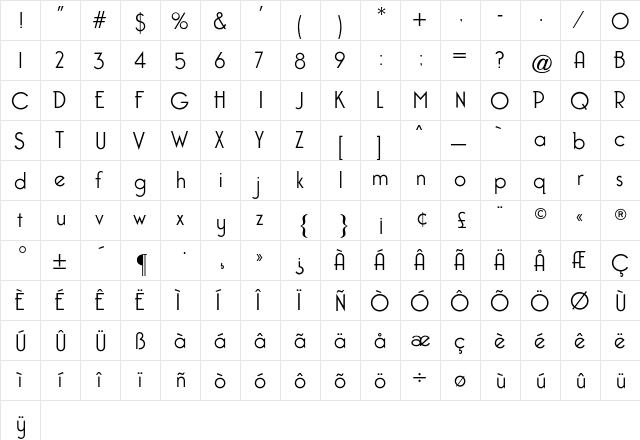
Capone CG Light Regular Font Preview
Capone CG Light Regular
Capone CG Light Regular Font Details
| Foundry | Agfa Corporation |
Design Context for Capone CG Light Typeface
Capone CG Light is a composed and adaptable typeface that performs quietly and consistently across a wide range of design contexts. Its slender proportions lend an understated elegance to any composition.